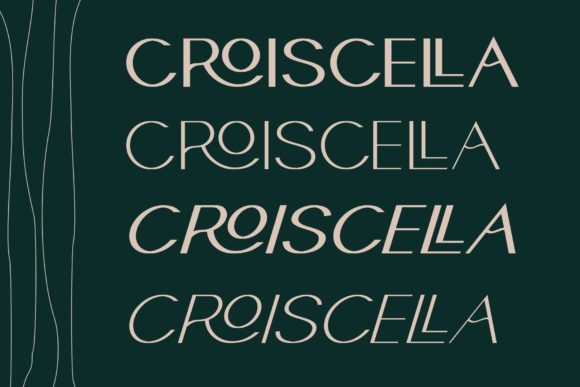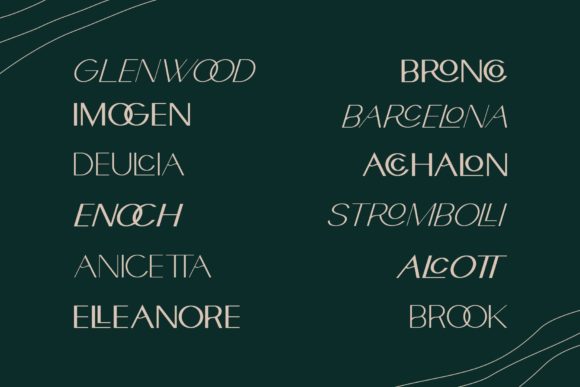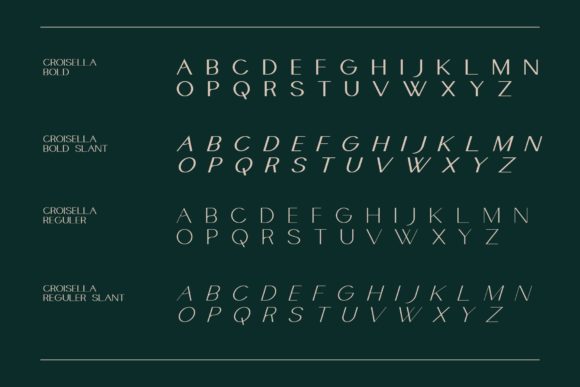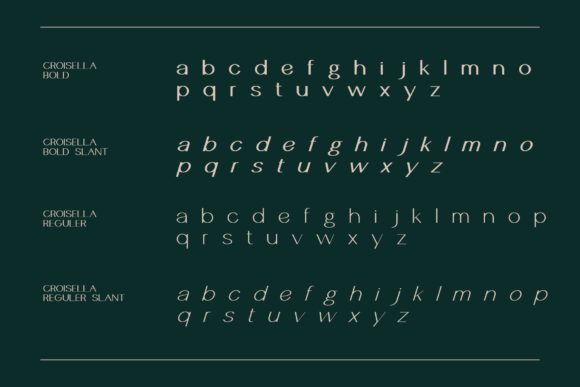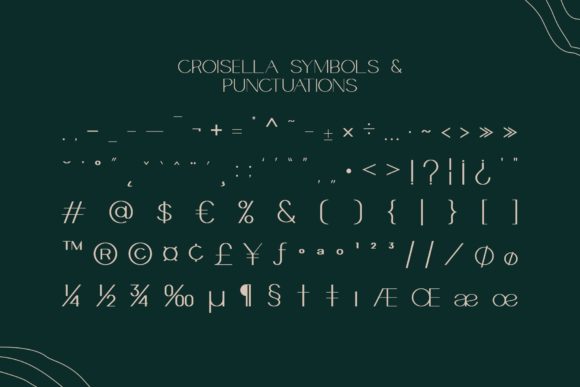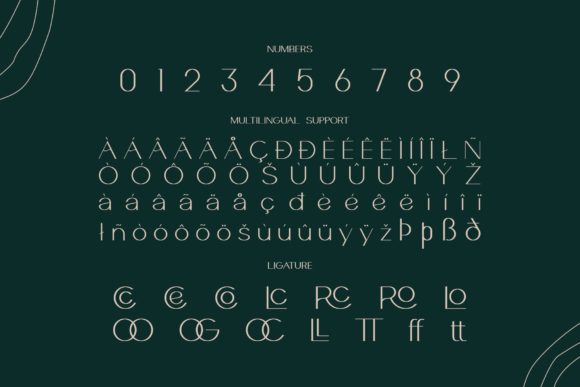
Croiscella Font: Elevate Your Designs with Elegance and Sophistication
In the world of typography, fonts play a crucial role in making or breaking a design. A well-chosen font can elevate your project from ordinary to extraordinary. If you’re a designer or crafter looking for a clean and elegant sans serif font, look no further than Croiscella Font. In this article, we’ll explore the features and benefits of Croiscella Font and why it’s a must-have for your design arsenal.
What is Croiscella Font?
Croiscella Font is a modern sans serif font that exudes elegance and sophistication. Its clean lines, simple shapes, and balanced proportions make it perfect for a wide range of design applications, from posters and flyers to prints and digital media. Whether you’re designing for a client or working on a personal project, Croiscella Font is sure to impress.
Key Features of Croiscella Font
- Clean and Elegant Design: Croiscella Font boasts a sleek and refined design that’s perfect for creating visually stunning designs.
- Sans Serif: The font’s sans serif design makes it highly legible and versatile, suitable for both digital and print media.
- Highly Versatile: Croiscella Font can be used for a wide range of design applications, from posters and flyers to business cards and brochures.
- Easy to Read: The font’s clear and simple design ensures that your text is easy to read, even at small sizes.
Benefits of Using Croiscella Font
So, why should you choose Croiscella Font for your designs? Here are just a few benefits of using this amazing font:
- Instant Professionalism: Croiscella Font adds a touch of elegance and sophistication to your designs, giving them an instant professional boost.
- Improved Legibility: The font’s clear and simple design ensures that your text is easy to read, reducing eye strain and improving overall user experience.
- Endless Possibilities: With Croiscella Font, the design possibilities are endless. Use it for posters, flyers, prints, and more to create stunning visual designs.
- Experiment with Font Sizes: Croiscella Font looks great at a range of font sizes, from small and delicate to large and bold.
- Play with Color: The font’s clean design makes it perfect for use with a wide range of colors and textures.
- Pair it with Other Fonts: Croiscella Font pairs well with a range of other fonts, making it easy to create visually interesting and dynamic designs.